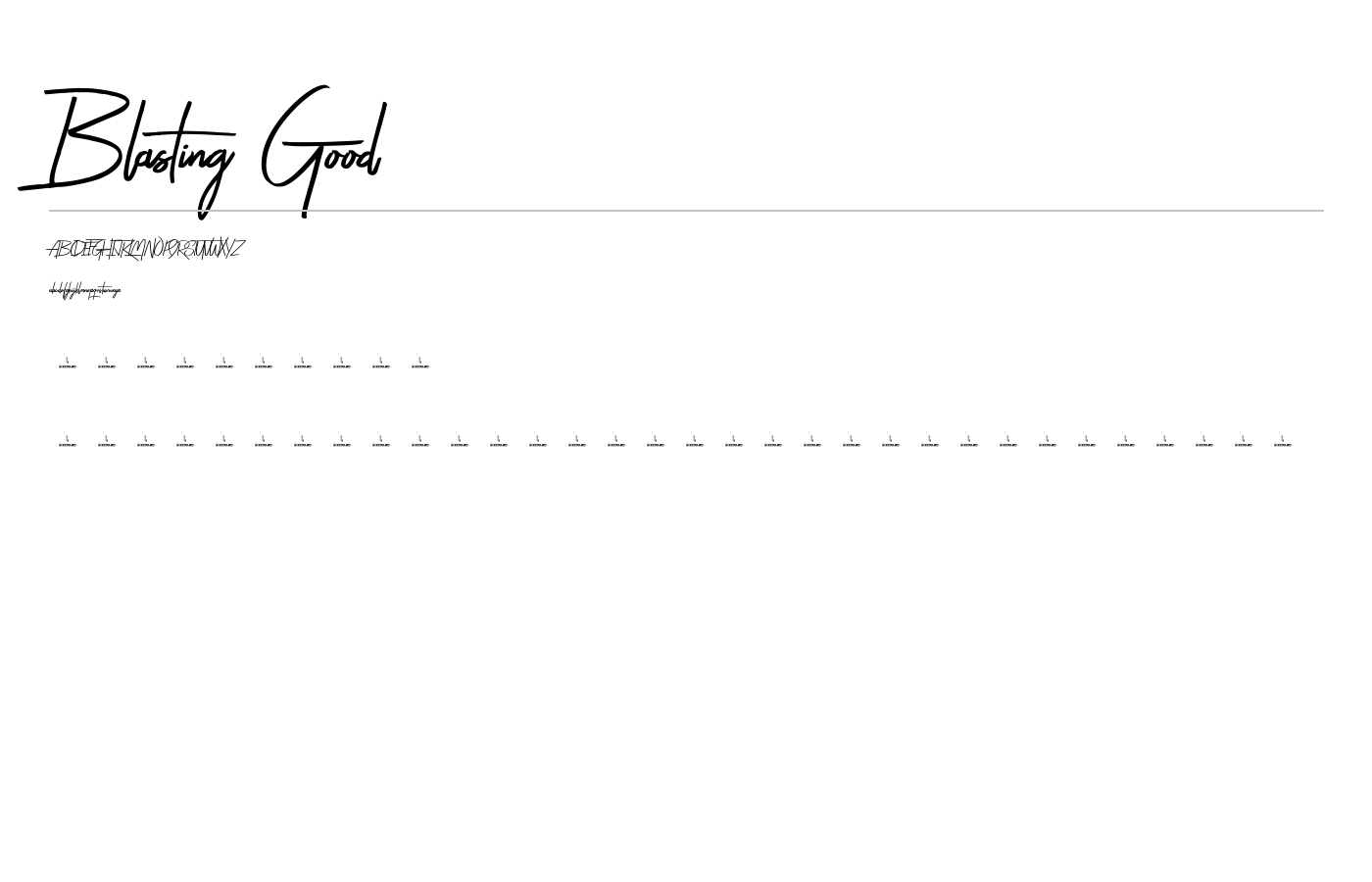
Blasting Good is a dynamic, handwritten script font that exudes energy and modern flair with its tall, narrow letterforms and sharp, flowing strokes. Its casual yet sophisticated style makes it perfect for creative branding, stylish logos, and eye-catching headlines that need a personal, artistic touch. This font works best where a bold, expressive voice is desired to convey individuality and contemporary elegance.
Blasting Good Font
About Blasting Good Font
| Font family | Blasting Good Font |
| Designer | Jonathan S. Harris |